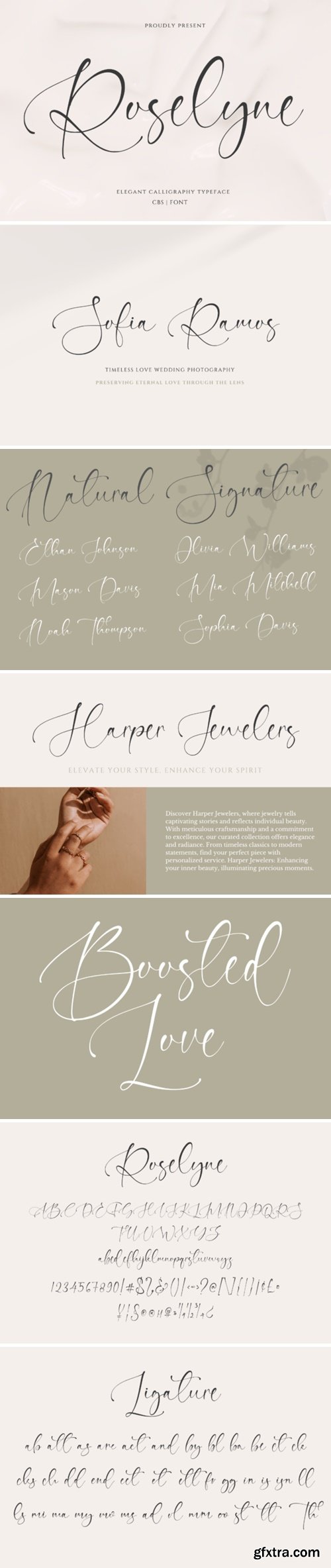
Discover the beauty of Roselyne, a modern signature handwriting font that adds a touch of elegance to your designs. With its sleek and stylish strokes, Roselyne is perfect for logos, branding materials, invitations, and more.